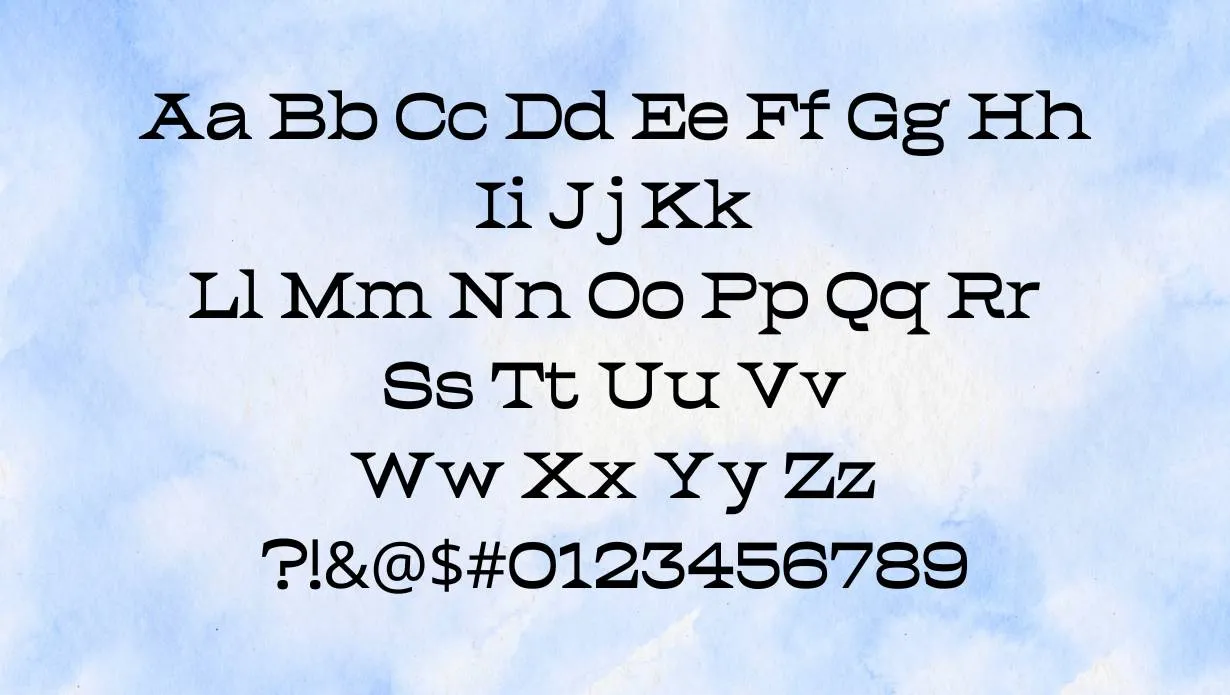
Rassvet Font is a bold and expressive typeface with a strong and distinctive design. It’s commonly used in advertising, headlines, and graphic design where a modern and eye-catching appearance is essential.
| Name | Rassvet Font |
| Designer | Arthur Avtukhov |
The font’s powerful letterforms command attention and create a memorable visual impact.